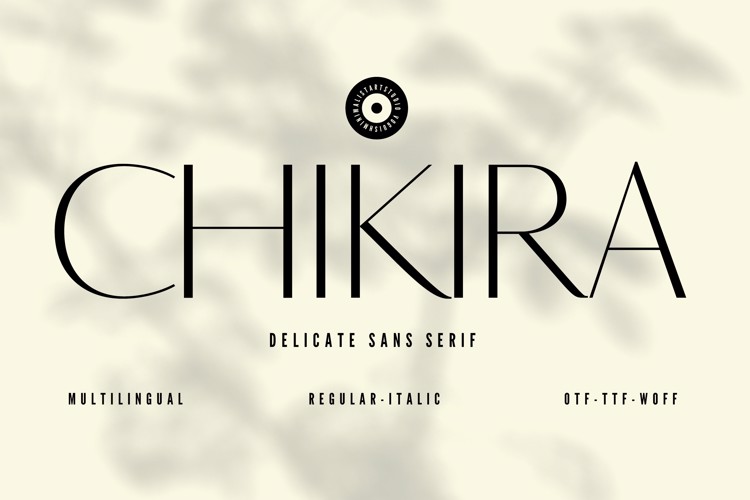
CHIKIRA Font
๐จ Font Name: Chikira by Minimalist Art Studio
๐จ Font Description: Chikira is a delicate sans serif with soft geometry and multilingual supportโperfect for minimalist branding, poetic layouts, and lifestyle packaging.
โ Complete Latin set + multilingual diacritics
โ Alternates, stylistic sets & ligatures
โ Numbers, small caps, and extended punctuation
โ Bonus italics and family styles